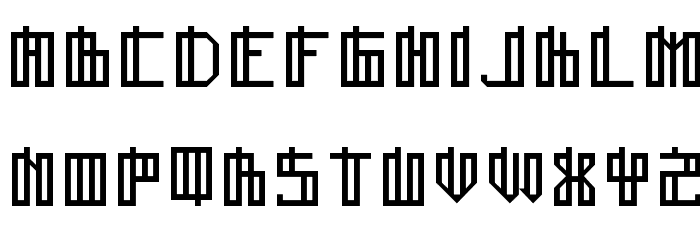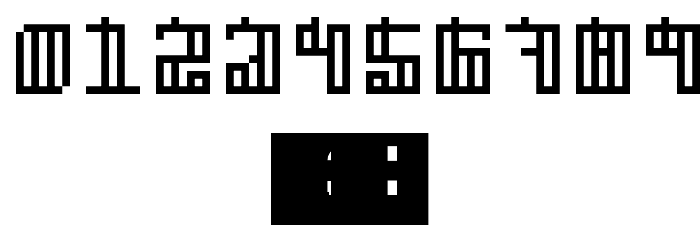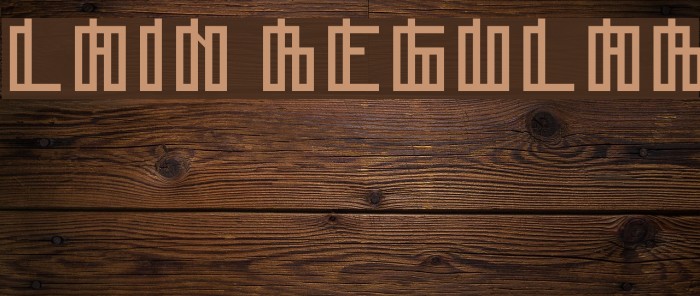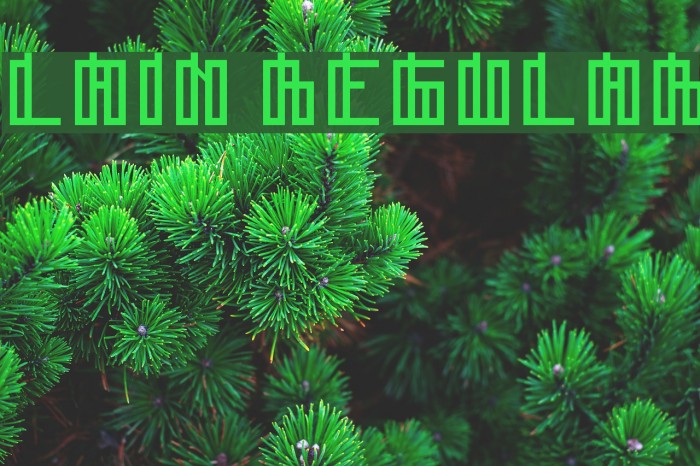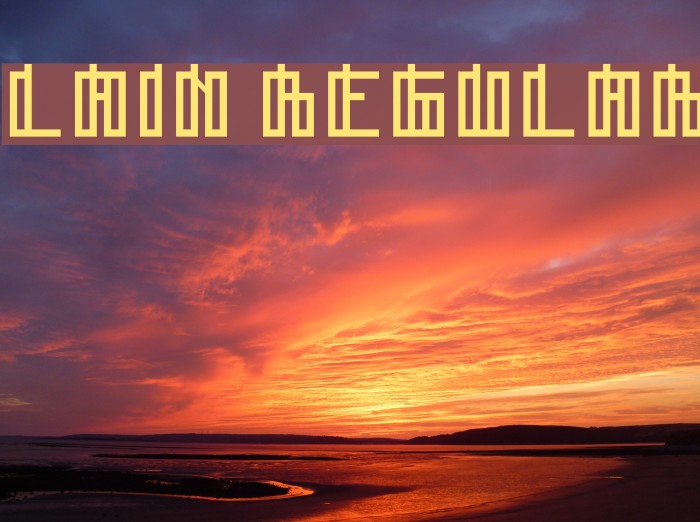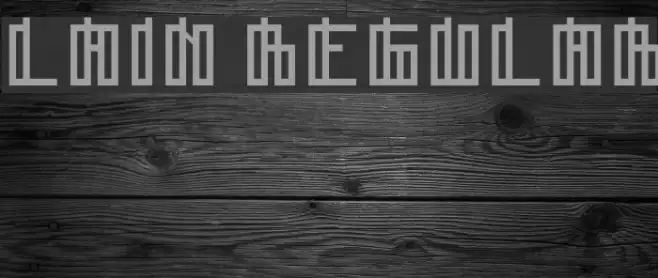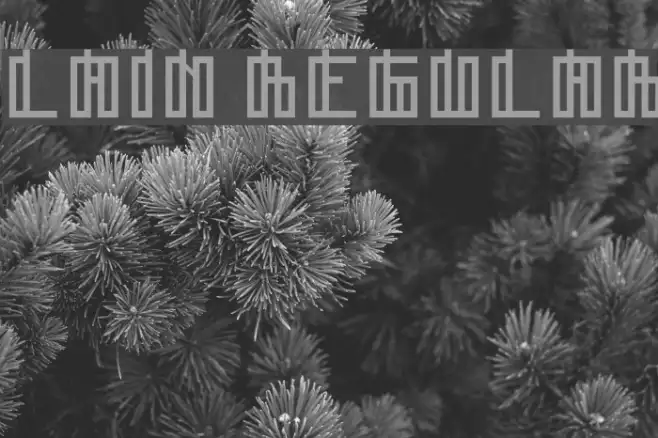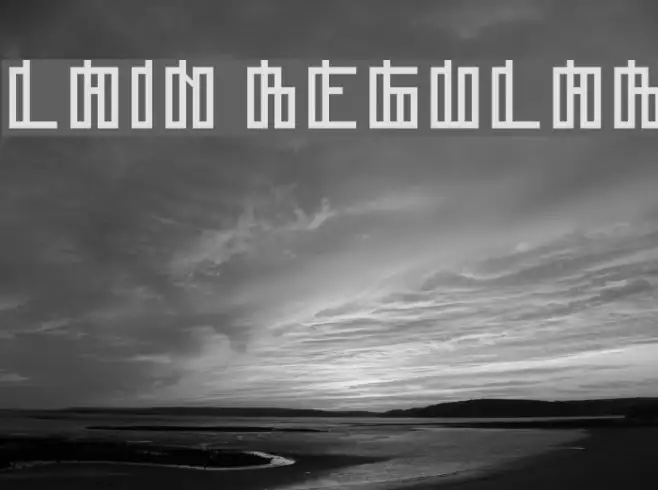
Lain Regular Font
This font features a unique, futuristic design with geometric shapes and sharp angles. Each character is constructed with a consistent stroke width, creating a cohesive and bold appearance. The uppercase letters are particularly striking, with a blocky and angular style that gives a sense of modernity and innovation. The lowercase letters maintain this geometric theme, offering a seamless transition between cases. Numbers and special characters are designed to match the overall aesthetic, ensuring uniformity across all text. This font's distinct style makes it ideal for projects that require a modern and edgy look.
A futuristic, geometric font with bold, angular characters.